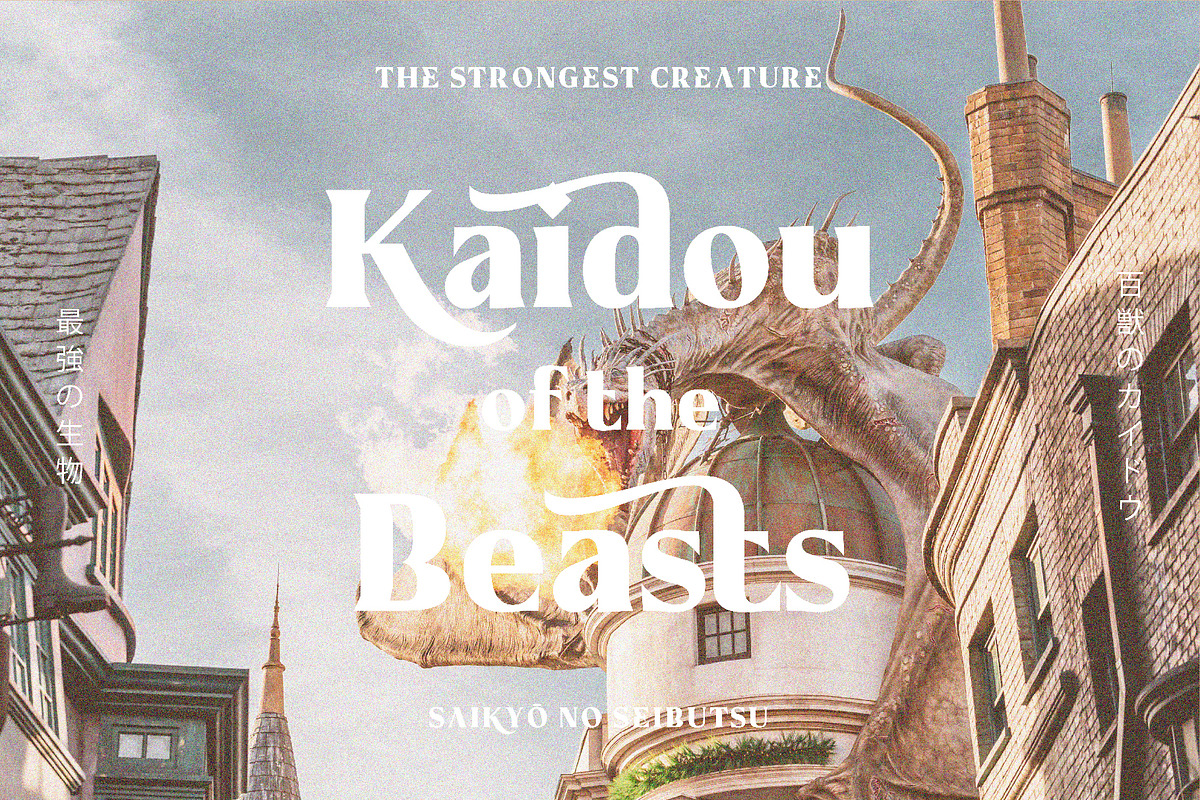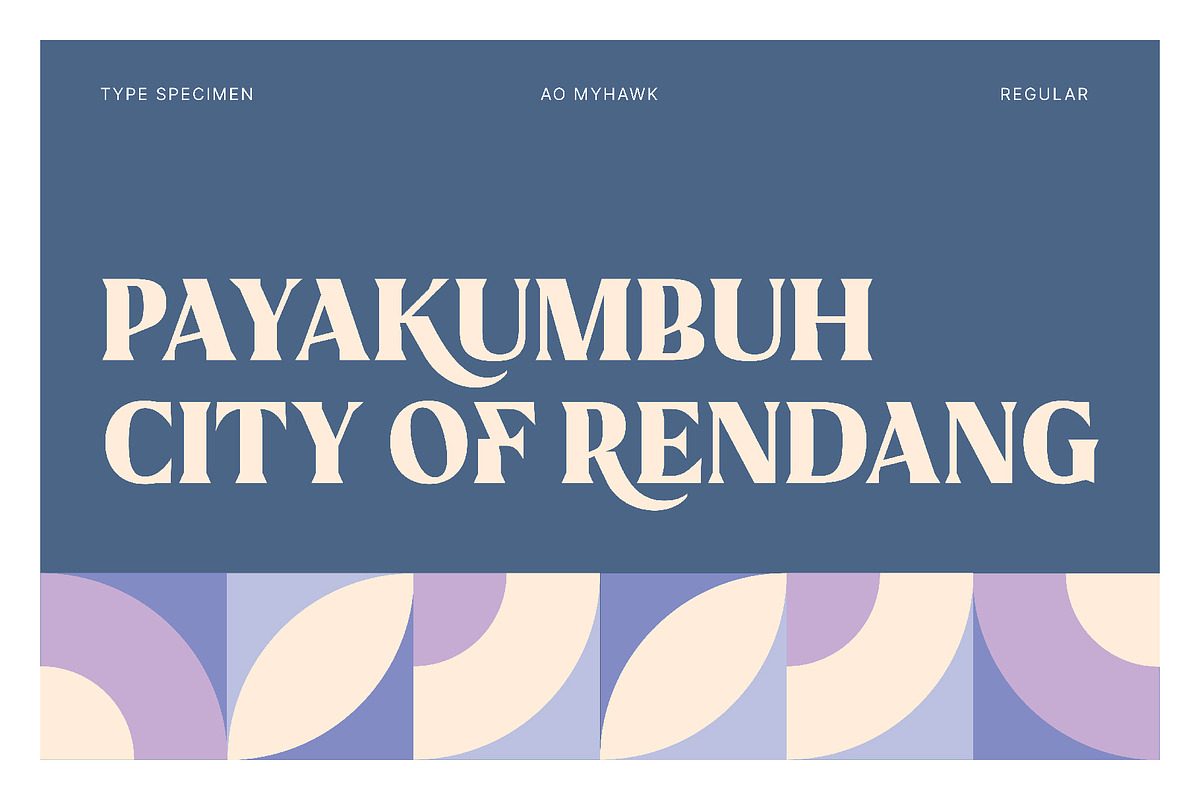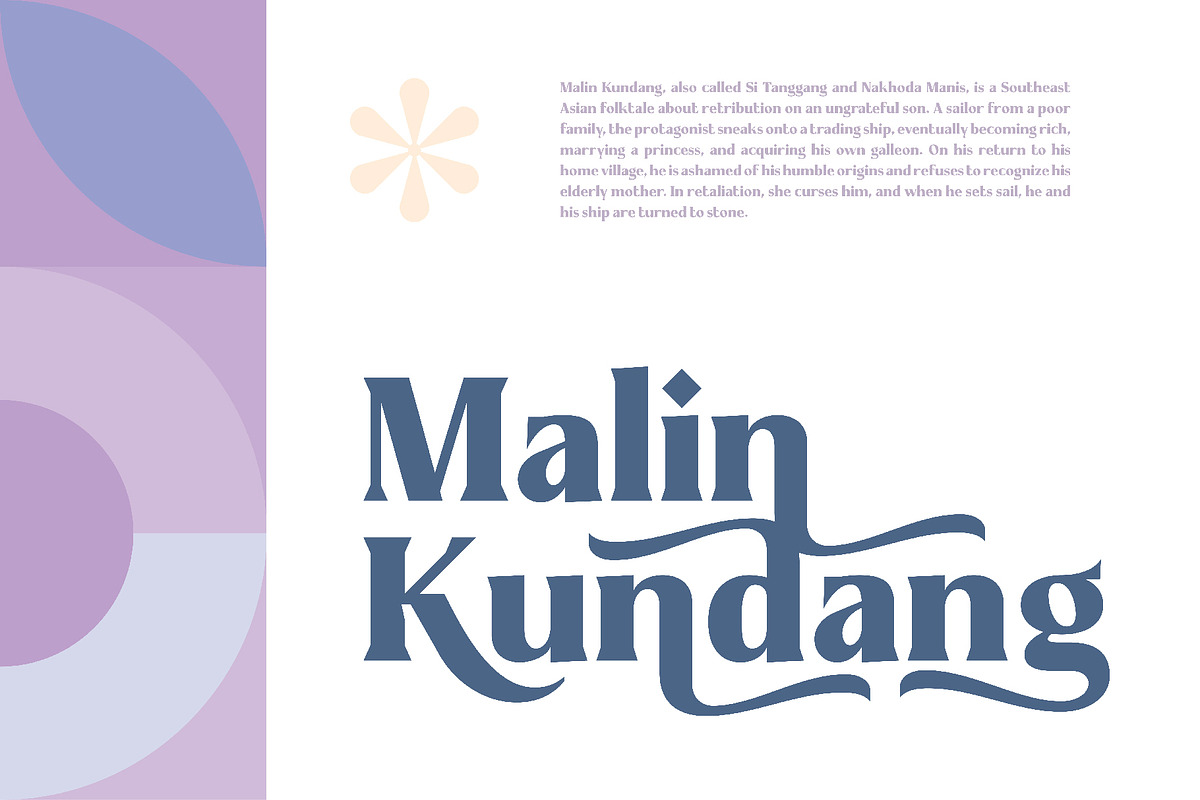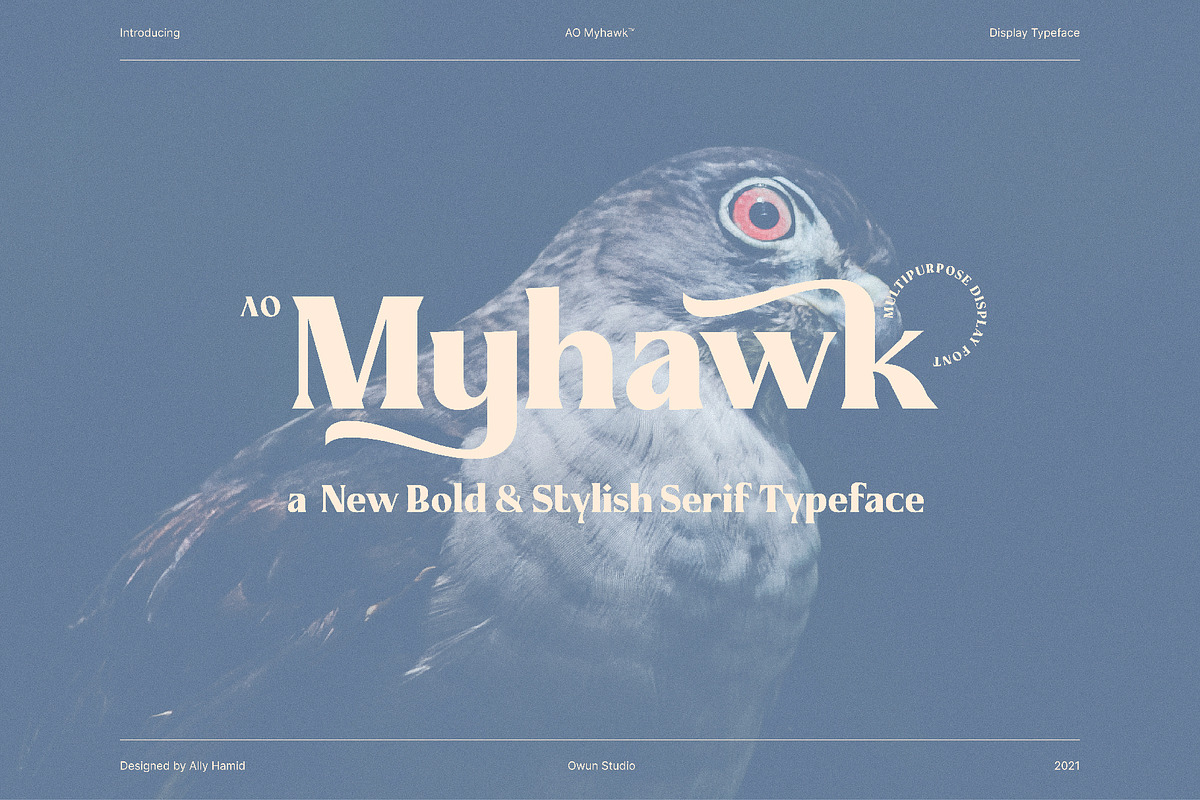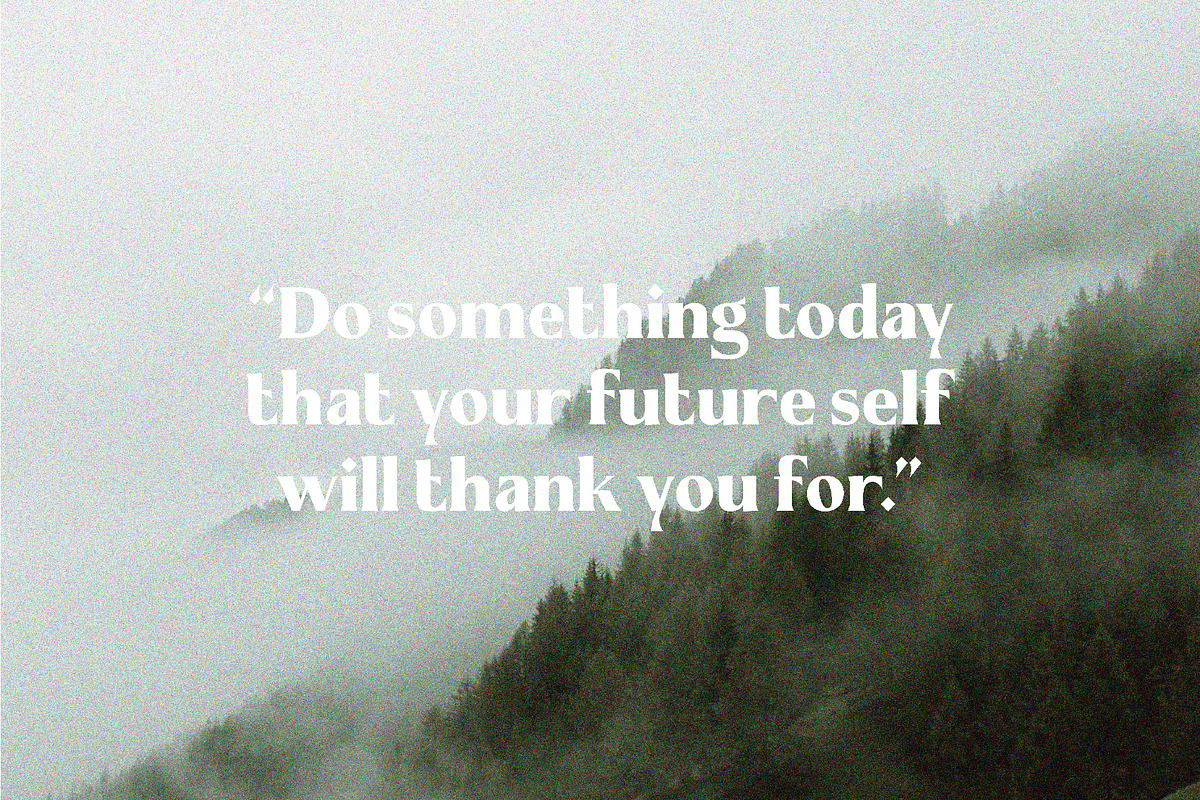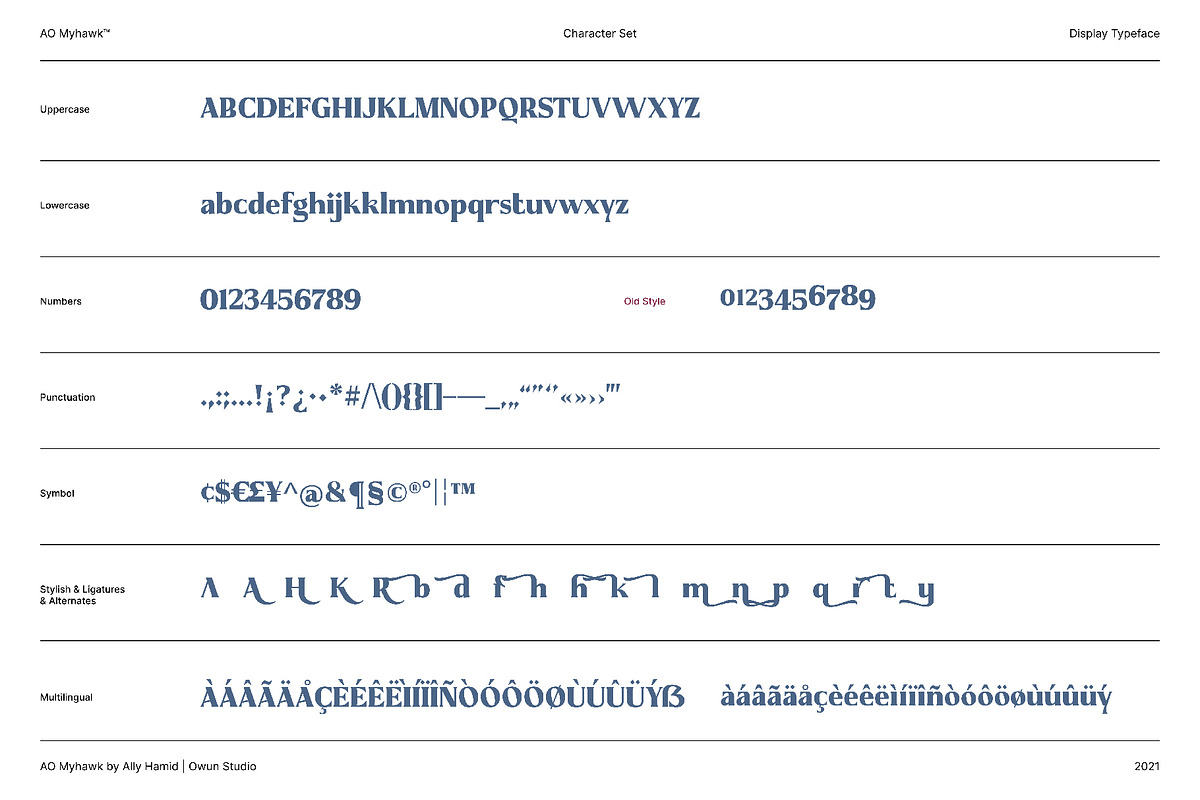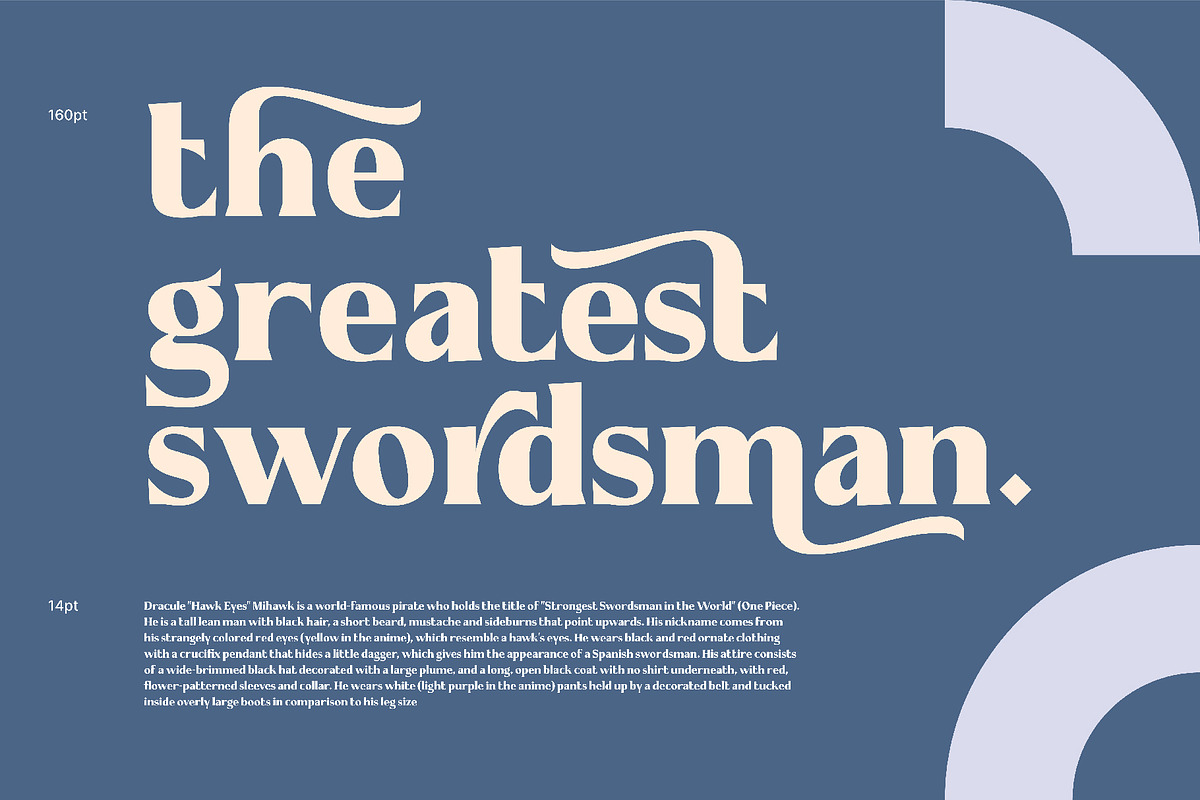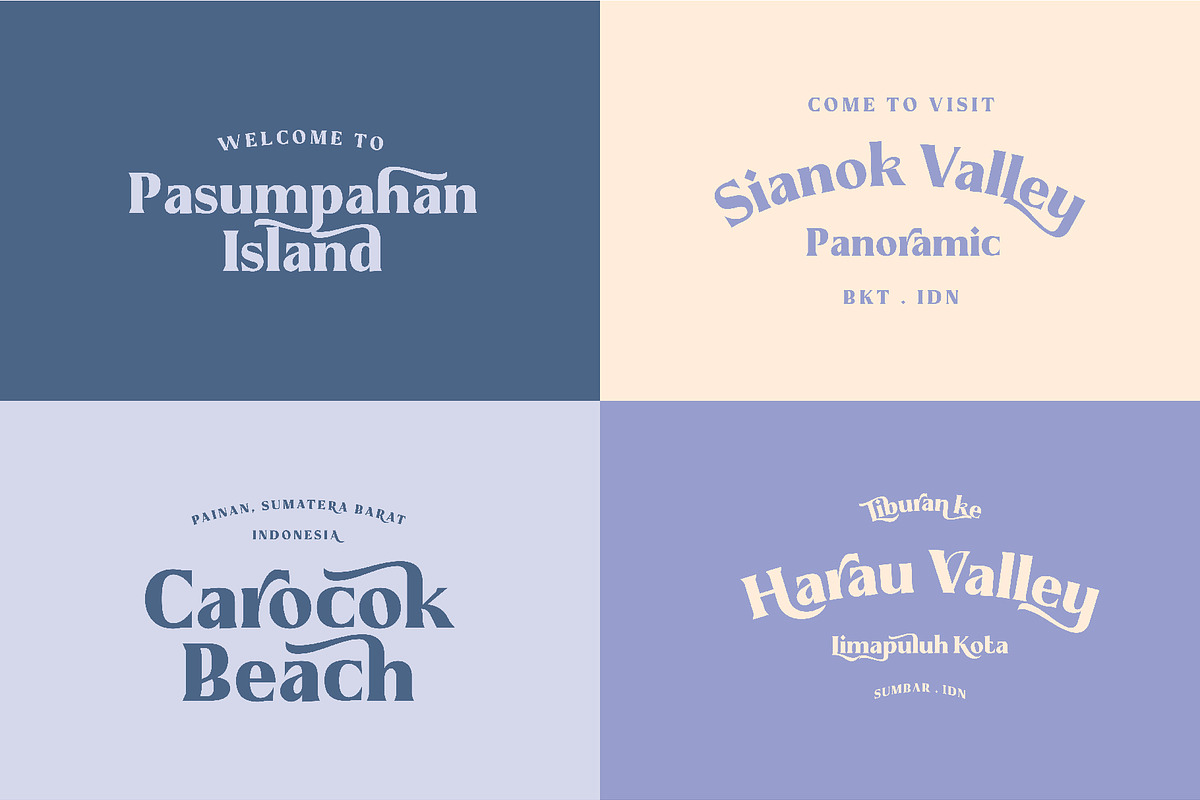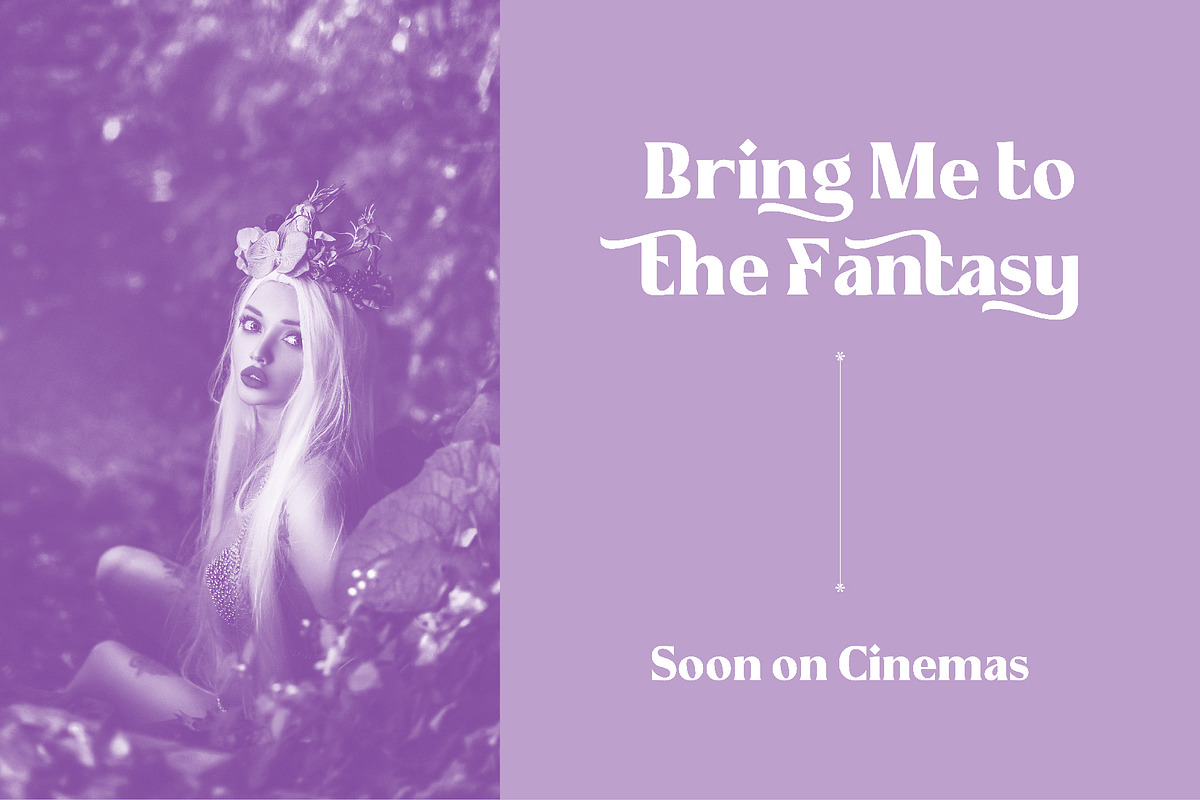
AO Myhawk - Display Typeface
AO Myhawk is fearless, chic and bold typeface with gothic touch. inspired by a fictional character Dracule Mihawk from the One Piece Manga / Anime. Perfect for big headlines for both commercial or print. with ligatures and alternates features, makes your project looks more stylish and impactful designs.